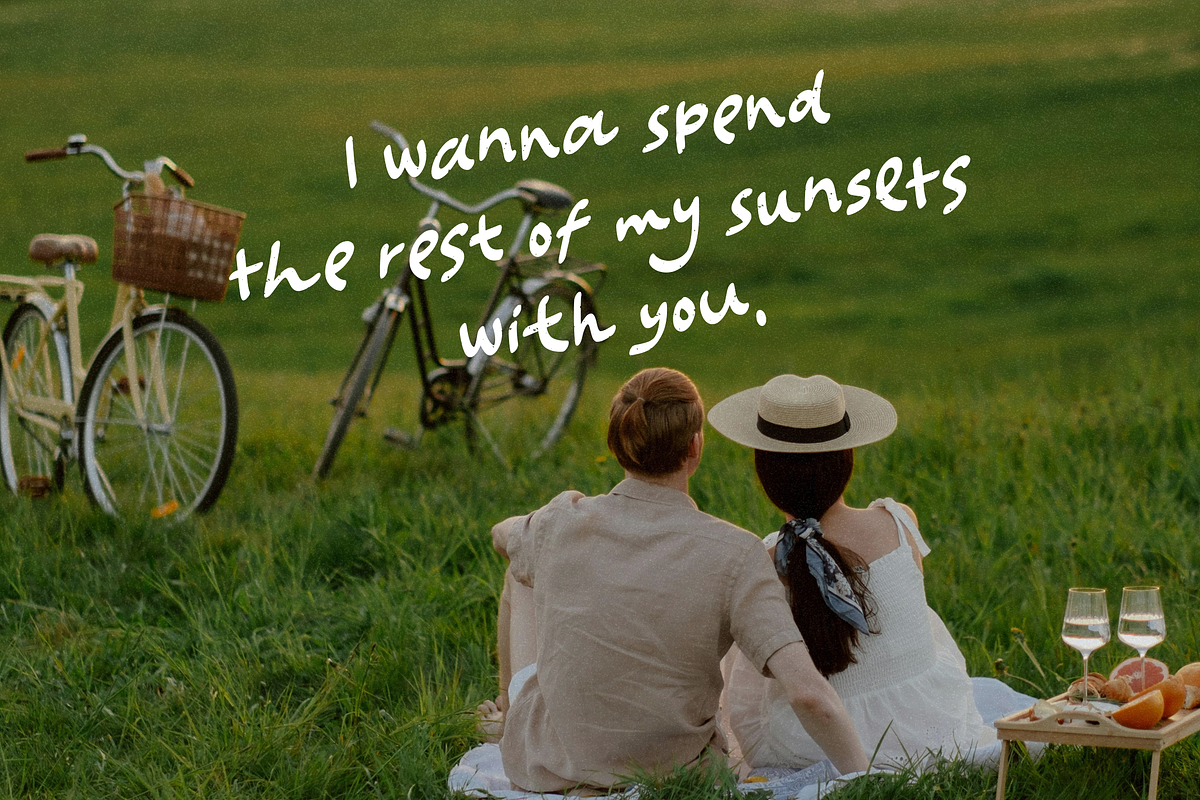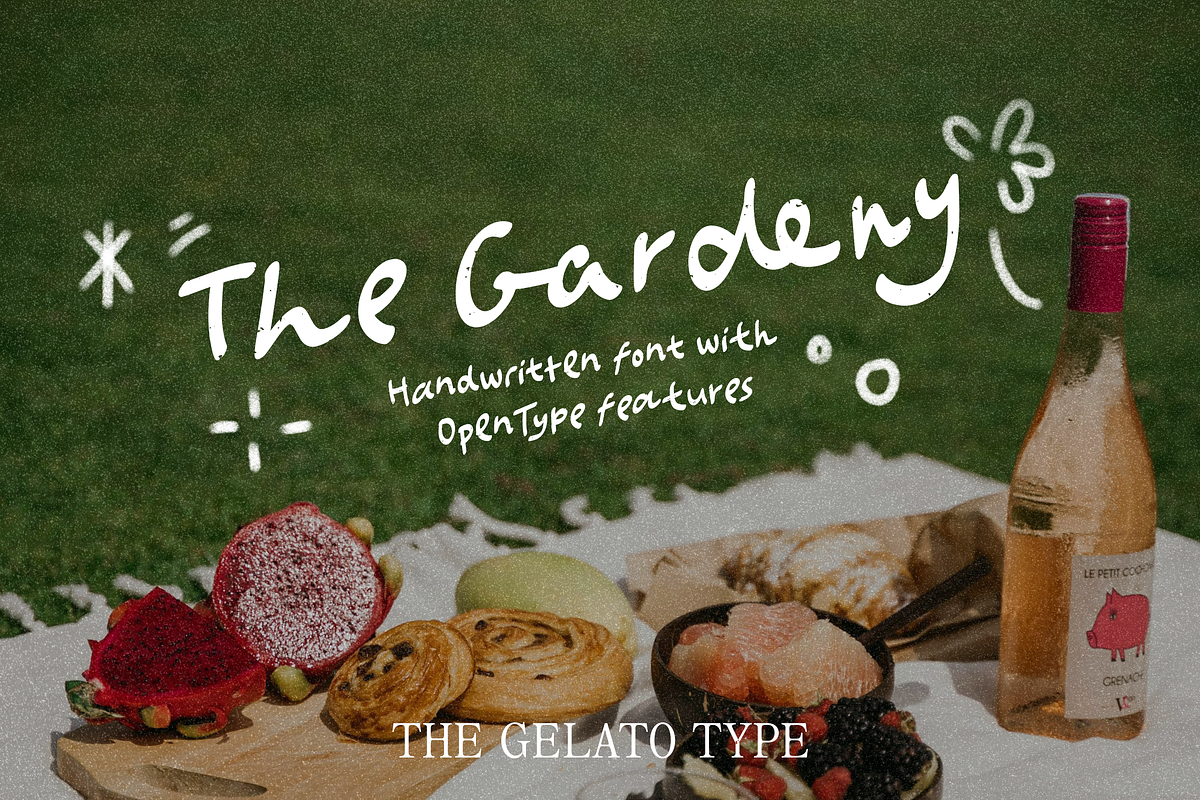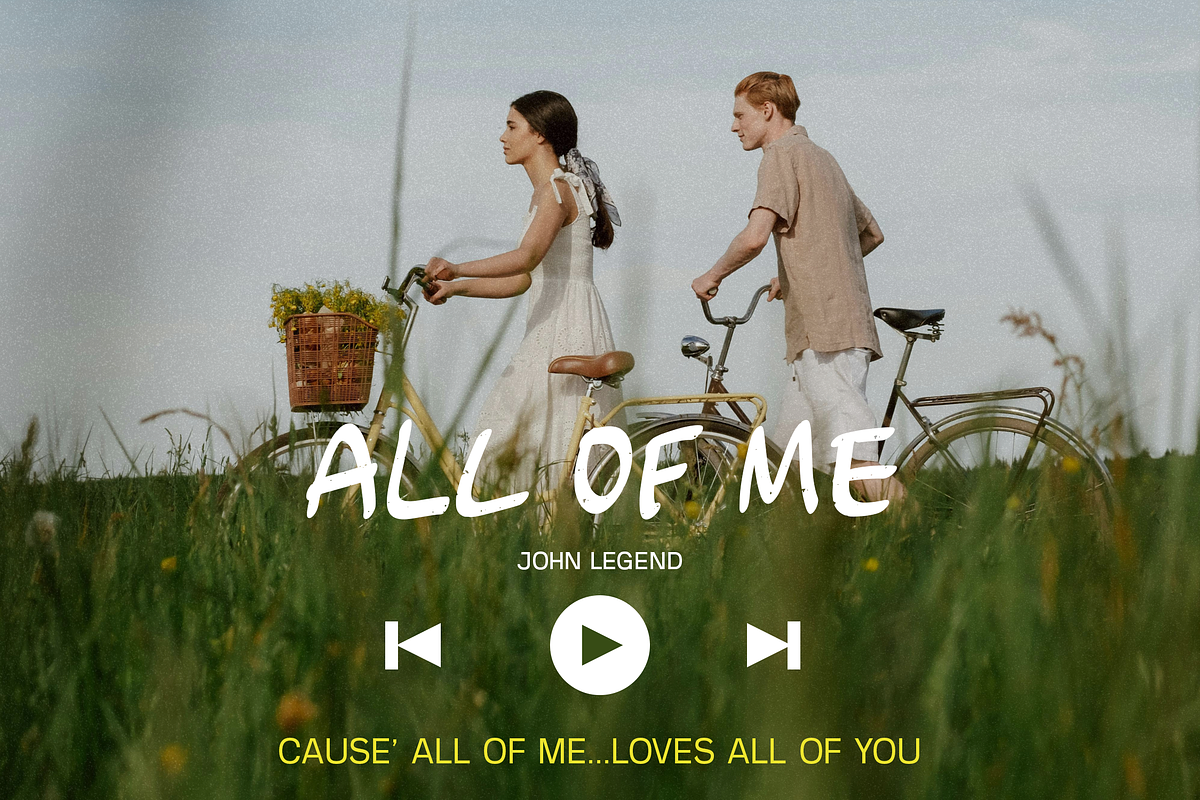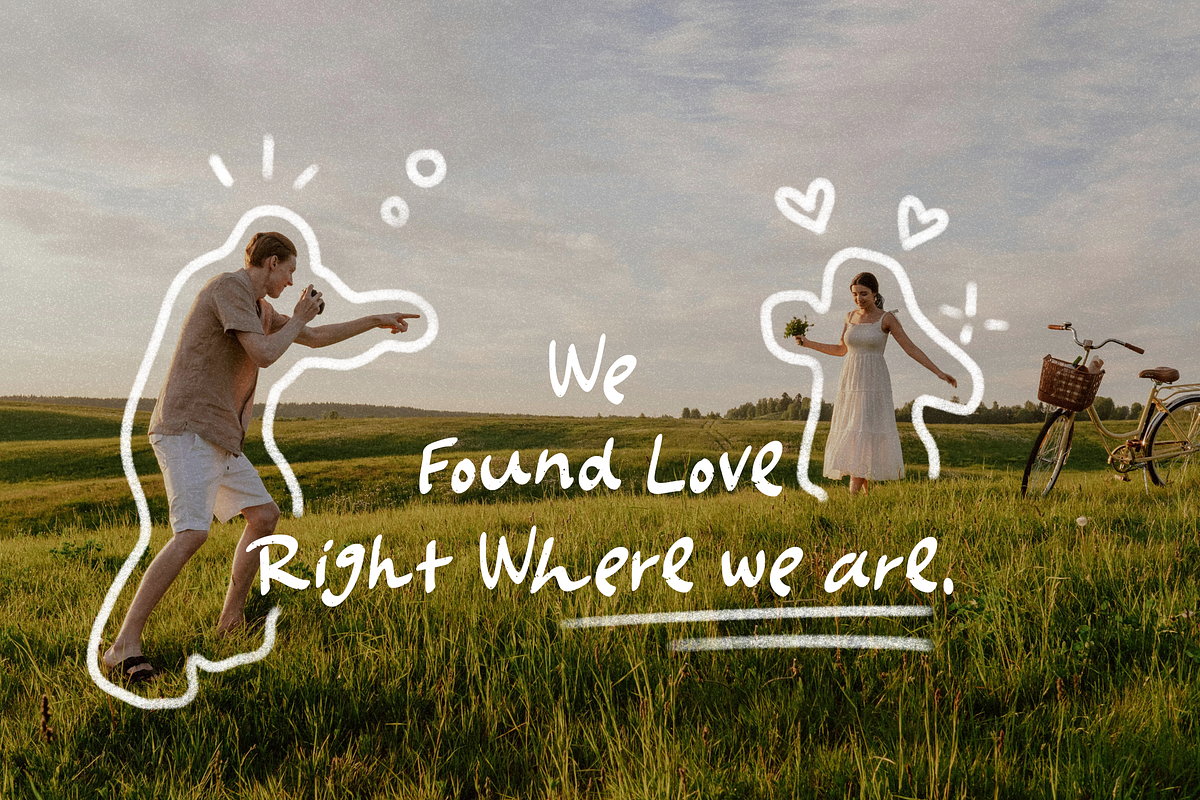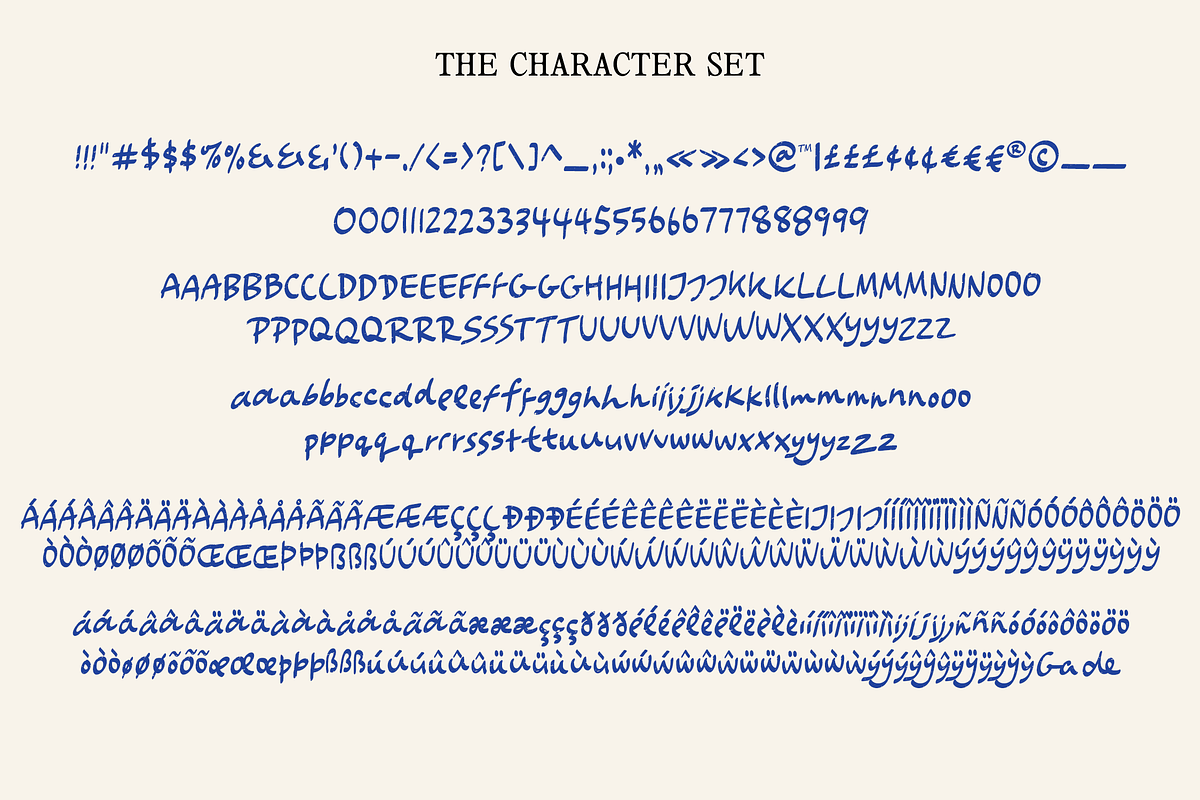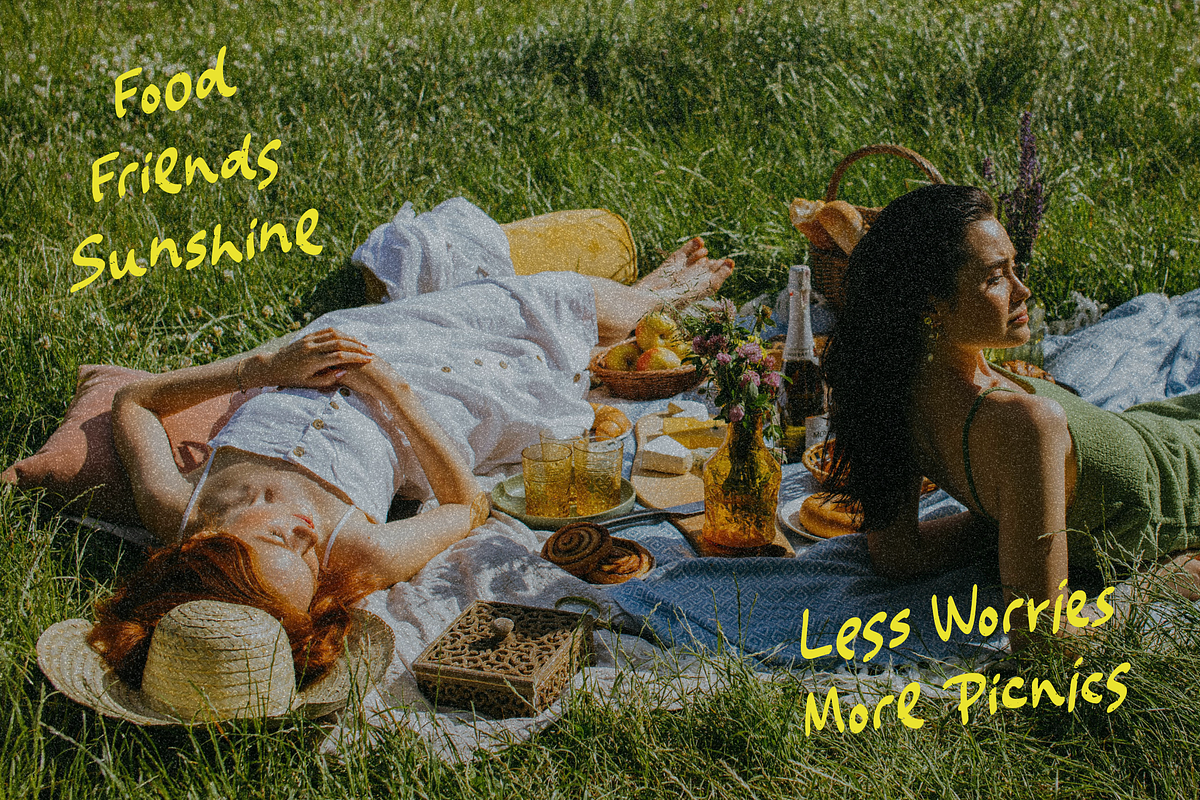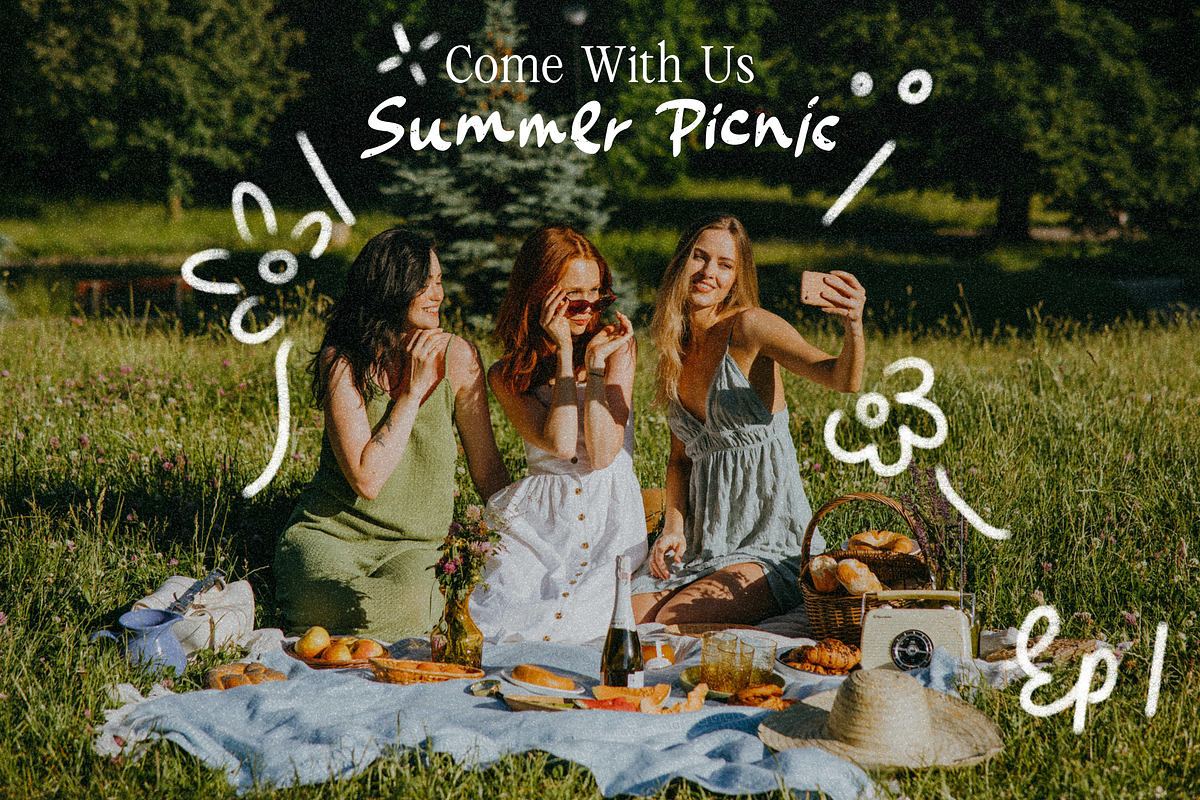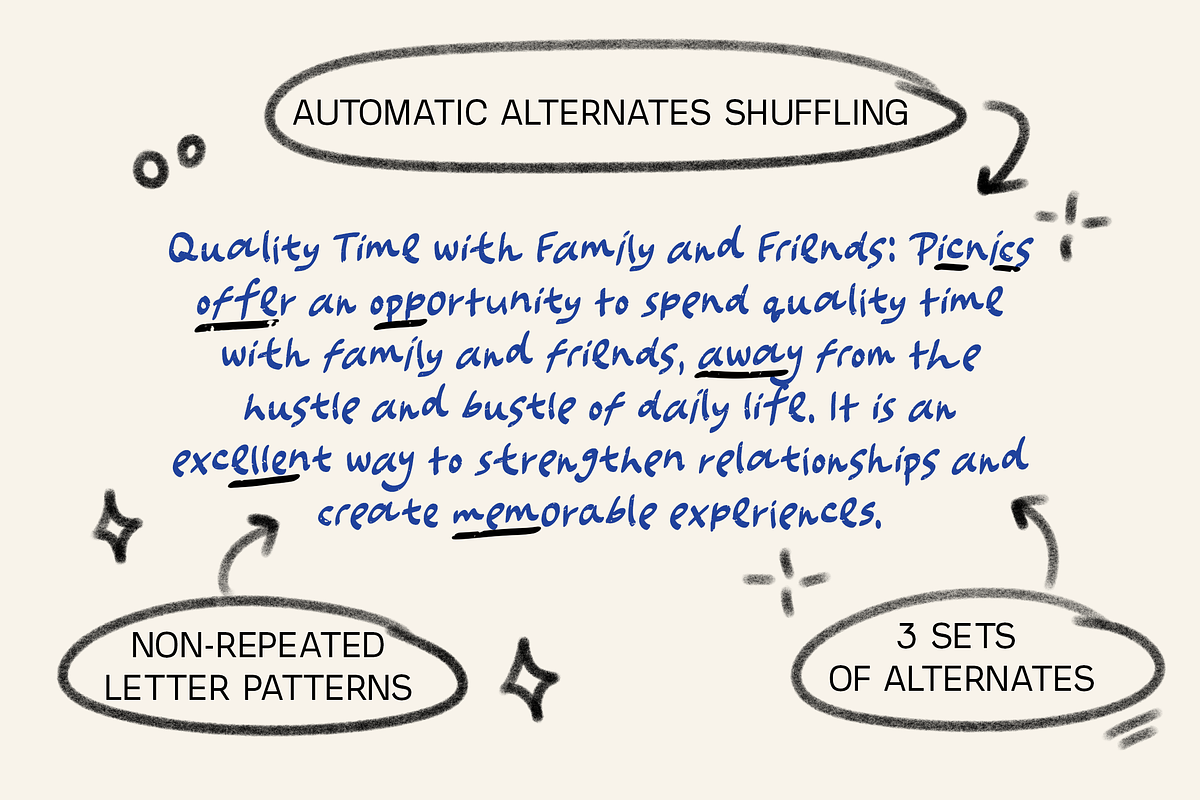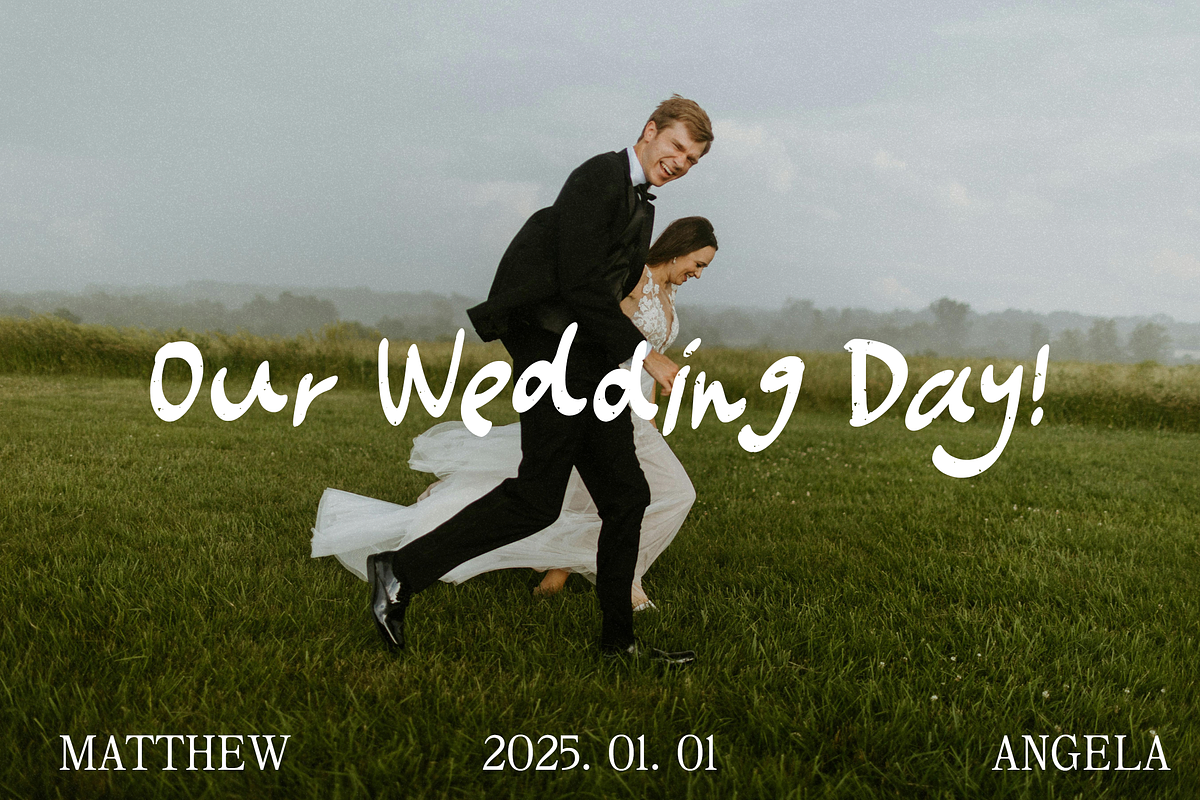
The Gardeny Handwritten Font
Introducing "The Gardeny" – a graceful and romantic handwriting font meticulously crafted to enhance your special projects. Designed with a blend of elegance and whimsy, this font is perfect for wedding invitations, heartfelt letters, and any handcrafted endeavor that deserves a touch of personal charm.
Special Features:
Sweet Handwriting Style: "The Gardeny" exudes a natural, flowing script that captures the essence of handwritten love notes and heartfelt messages.
Automatic Alternates Shuffling: One of its standout features is the ability to automatically shuffle through alternate characters. This ensures that no repeated letter patterns occur, adding a lifelike variation to your text, just like genuine handwriting.
3 Alternate Sets: Enjoy the versatility of three unique alternate sets. These sets offer a range of subtle variations, allowing you to customize and personalize your text with ease.
Versatile Usage: Whether you're designing wedding stationery, creating beautiful typography for romantic projects, or crafting greeting cards, "The Gardeny" lends a touch of sophistication and warmth to every piece.